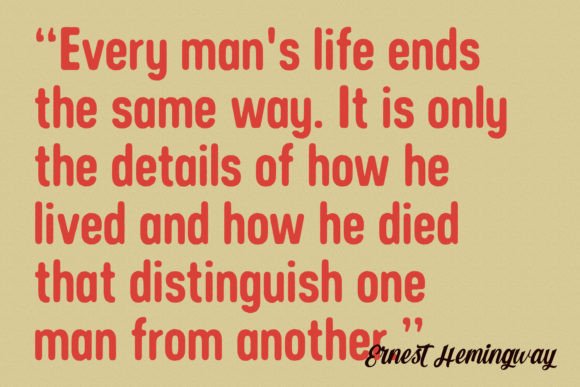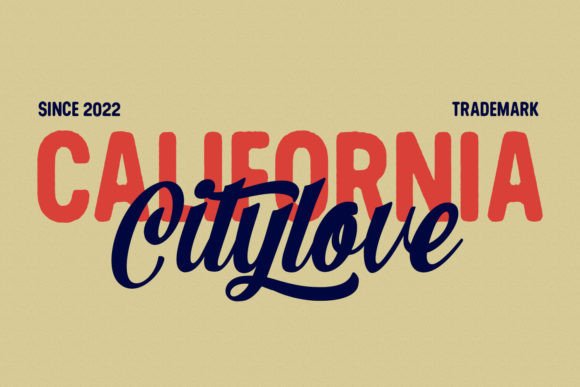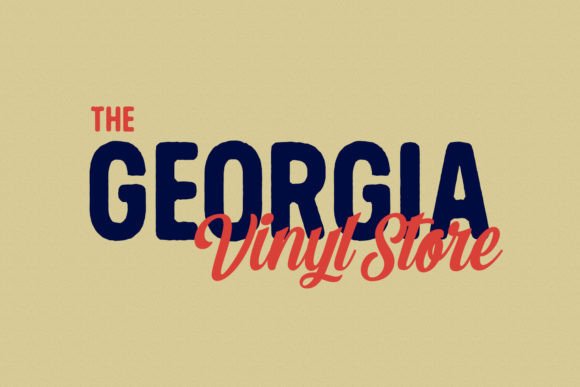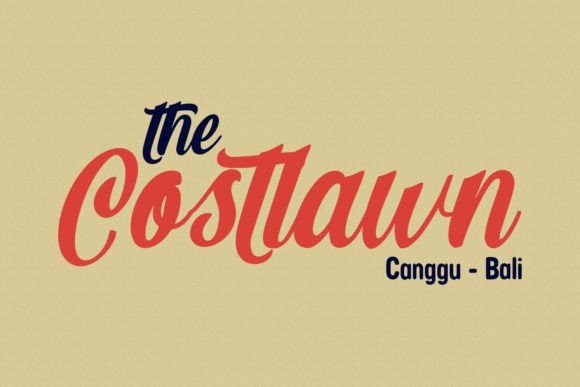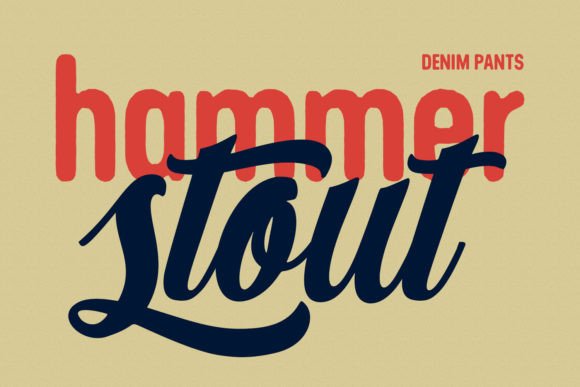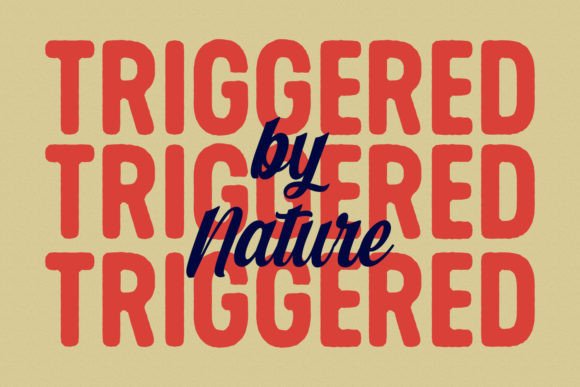
Nirbon Duo Font — Free Download Now
Introduction to Nirbon Duo Font
Have you ever found yourself stuck in a creative rut, unable to express the perfect idea on paper? It’s a frustrating feeling, especially when you know that the right design element could be the key to unlocking your true vision. That’s where the Nirbon Duo Font comes in – a high-quality, versatile display font duo that’s sure to elevate any creative project.
Whether you’re working on a personal or professional project, the Nirbon Duo Font is a valuable design resource that’s worth having in your library. With its cool and interesting design, this font has the potential to add a unique touch to any creation, making it stand out from the crowd. Plus, with a transparent background, you can easily use it as a free download to add a professional finish to your designs.
Key Features of Nirbon Duo Font
• High-quality design font with a unique, modern aesthetic, perfect for creative projects.
• Includes a wide range of glyphs and characters, making it suitable for use in a variety of languages.
• Designed to be versatile and adaptable, suitable for use in both digital and print design projects.
• Can be used as a design resource for logos, branding, and other creative projects, offering a unique and stylish touch.
Honest Review: Nirbon Duo Font
I recently stumbled upon the Nirbon Duo Font and decided to give it a try. As a designer, I’m always on the lookout for high-quality design resources that can elevate my creative projects.
What works well with Nirbon Duo Font is its unique aesthetic and versatility. The font is available for free download, making it a fantastic resource for designers on a budget. I particularly appreciate the transparent background feature, which allows for seamless integration with other design elements.
• ✨ Unique aesthetic and versatility
• ✨ Suitable for various creative projects
However, there are a few limitations to consider. The font’s character set is somewhat limited, which may be a challenge for designers who need to work with a wide range of characters. Additionally, the font’s compatibility with certain software may be an issue.
• ⚠️ Limited character set
• ⚠️ Potential compatibility issues with certain software
Overall, I’d say the Nirbon Duo Font is a solid choice for designers who are looking for a high-quality, free design resource. While it may have some limitations, its unique aesthetic and versatility make it a great addition to any creative project.
The Nirbon Duo Font is a high-quality design resource ideal for creative projects requiring a unique and stylish touch. This font is available for free download, making it an excellent choice for designers and artists on a budget.
Tips for Getting the Most Out of Nirbon Duo Font
Experiment with different font sizes and styles to create a unique look. Use the font in combination with other design elements, such as images and graphics, to add depth and interest to your design. Consider using the font in a bold or italic style to create a dramatic effect.
Common Use Cases for Nirbon Duo Font
The Nirbon Duo Font is ideal for use in creative projects such as graphic design, digital art, and typography. It is also suitable for use in business documents, such as presentations and reports, where a unique and stylish touch is desired.